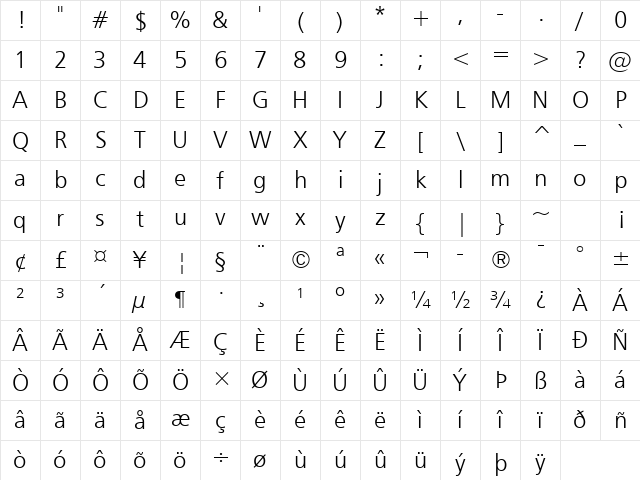
Humnst777 Lt BT Light
Design Context for Humnst777 Lt BT
Humnst777 Lt BT is a composed and adaptable typeface that performs quietly and consistently across a wide range of design contexts. Its slender proportions lend an understated elegance to any composition.